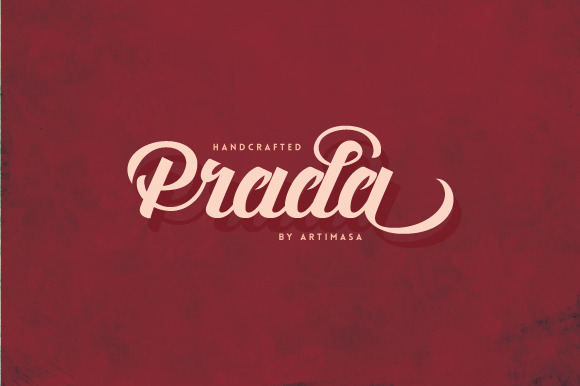
Prada Script Typeface
Prada is bold, classic, and fun vintage script. Crafted with OpenType features with more than 60 alternate characters to choose. This font was designed to suited as headlines, signage, poster, logo, badge, and emblem. Make sure you use OpenType savvy program and simply open Glyph Palette to access all of the glyphs.